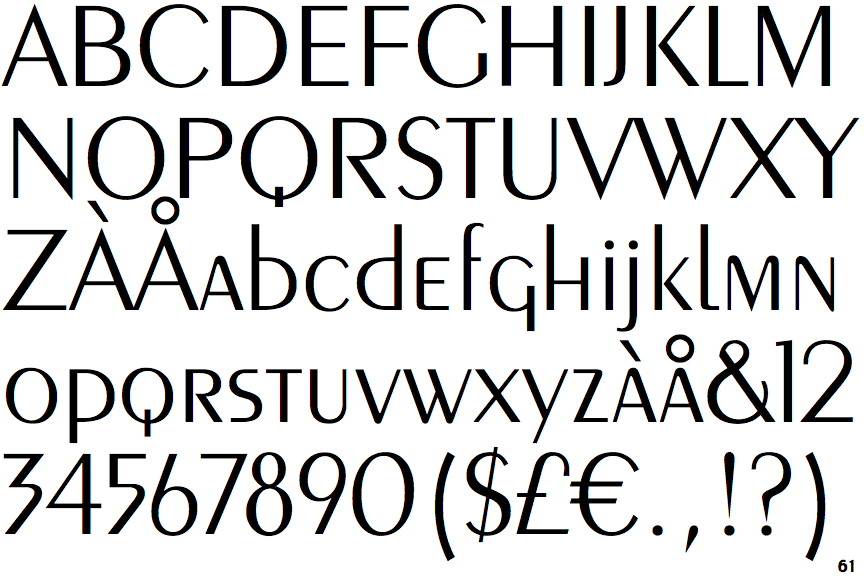
Unlock The Potential Of Exotic Fonts In 2023
In 2023, the world of typography is more vibrant and exciting than ever before. Thanks to advances in digital type design, many of the most innovative and original fonts are from unexpected sources around the globe. Exotic fonts are the latest craze among graphic designers, web developers, and other creatives who are looking to add an edge to their projects. But how do you unlock the potential of these unique and unconventional fonts?
What are Exotic Fonts?
Exotic fonts are typefaces that originate from unusual places. They can come from the fringes of the design world, such as a remote island off the coast of Japan or a small village in India, or even from the depths of the internet. In many cases, exotic fonts are created by individuals or small groups of designers, rather than large companies or established type foundries.
Exotic fonts often have a distinct look, with quirky, hand-drawn letterforms, unusual angles and proportions, and a rich range of character designs. They offer a unique visual style that stands out from the mainstream fonts available on the market. As such, they can be perfect for projects that require a unique and creative approach.
How to Find Exotic Fonts
Tips for Using Exotic Fonts
Once you’ve found some exotic fonts that you’d like to use, there are a few tips to keep in mind. First, it’s important to remember that these fonts are often quite distinctive, and can be difficult to read in large blocks of text. Consider limiting your use of exotic fonts to short titles, headings, and other short pieces of text.
It’s also important to consider the context in which you’re using the font. Certain exotic fonts may be better suited to certain projects than others. For example, a bold and quirky font may be perfect for a poster campaign, but may look out of place on a corporate website.
Finally, it’s important to remember that exotic fonts often come with their own character set. That means that they may not include all of the characters you need for a particular project. So make sure to double-check that the font you’re using has the characters you need before you commit to using it.
Exotic fonts can be a great way to add an interesting and unique visual style to your projects. But it’s important to remember that these fonts can be tricky to use, and may not always be appropriate for certain projects. With a bit of research, you can find the perfect exotic font for your next project.